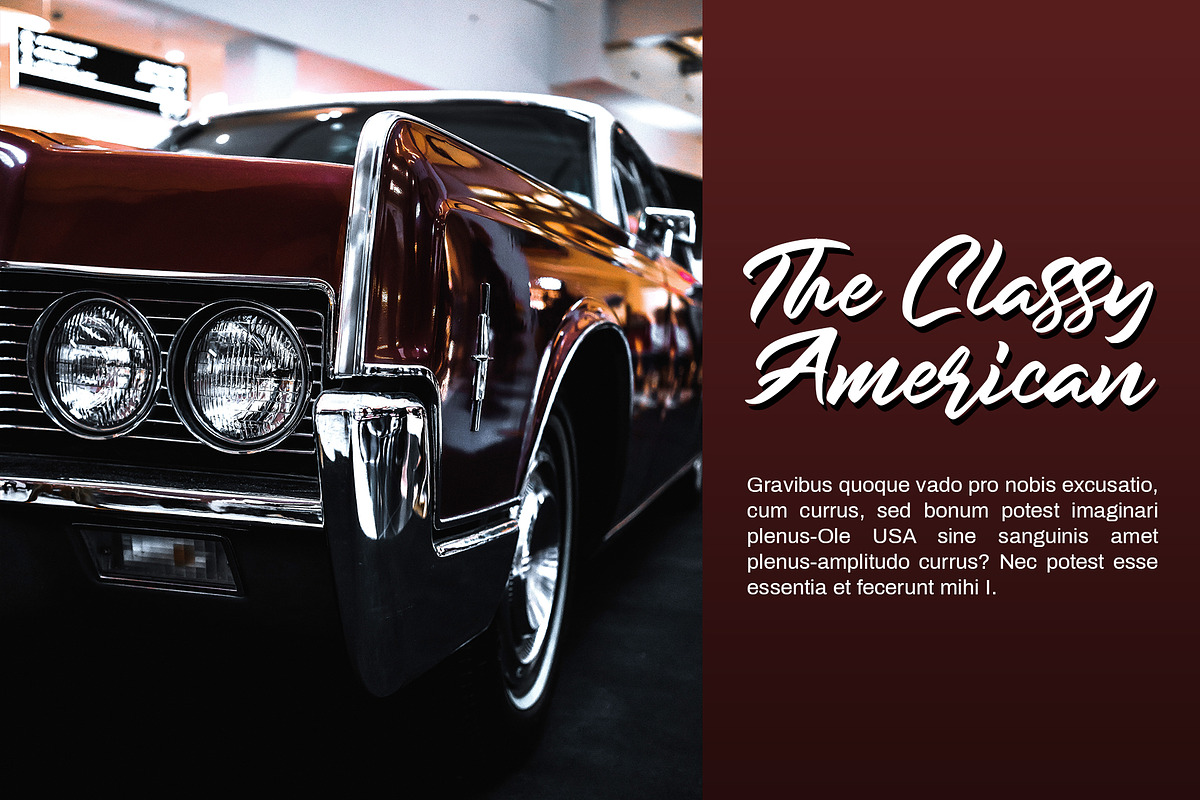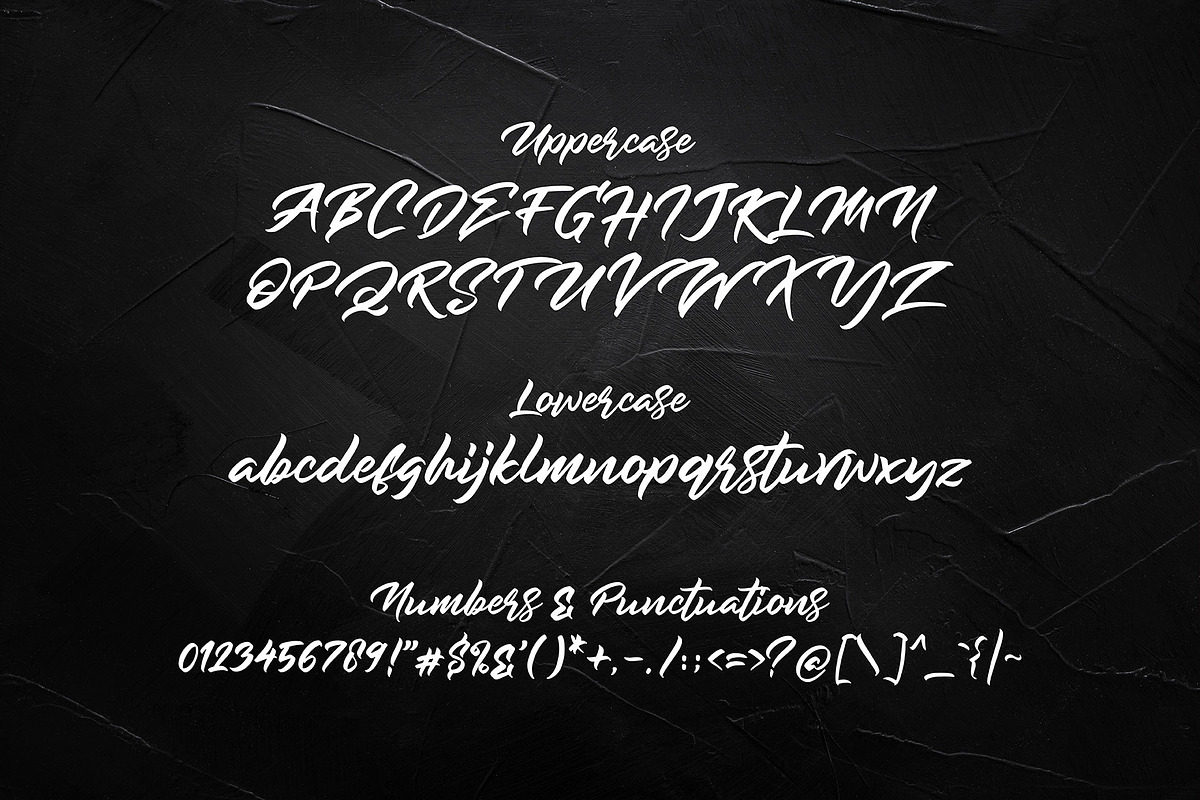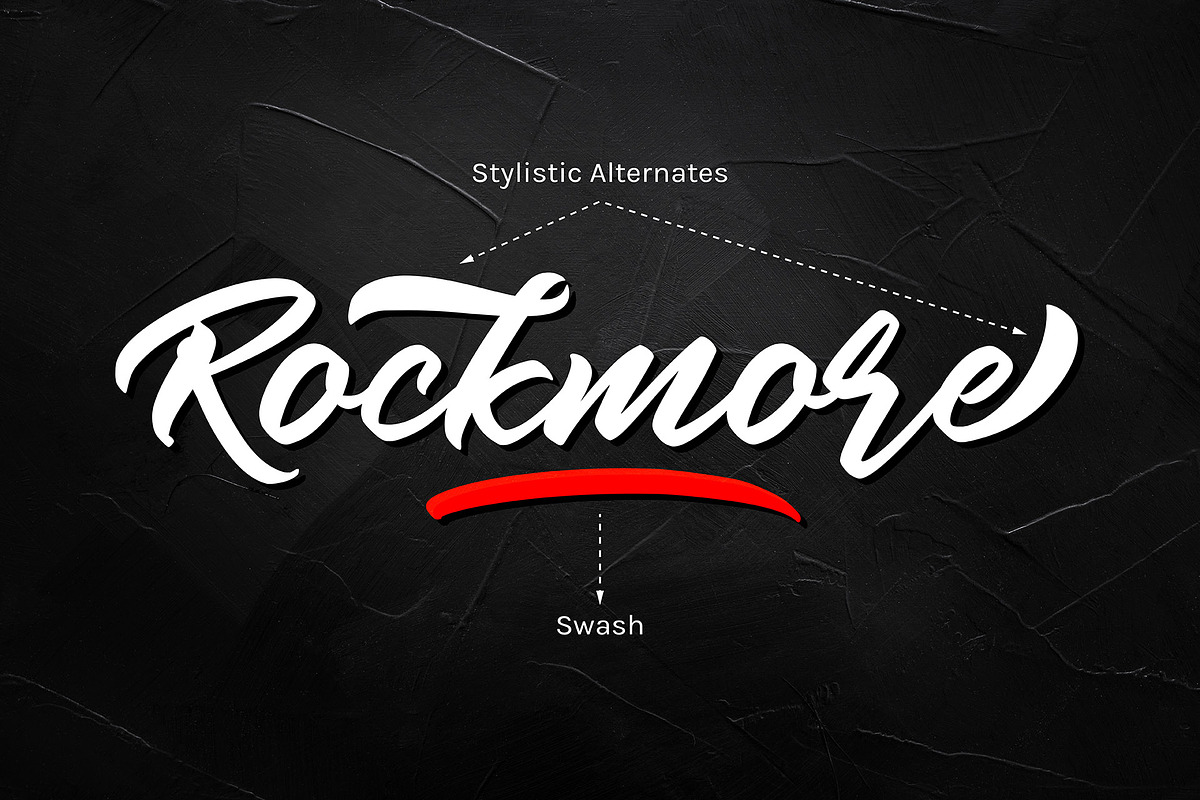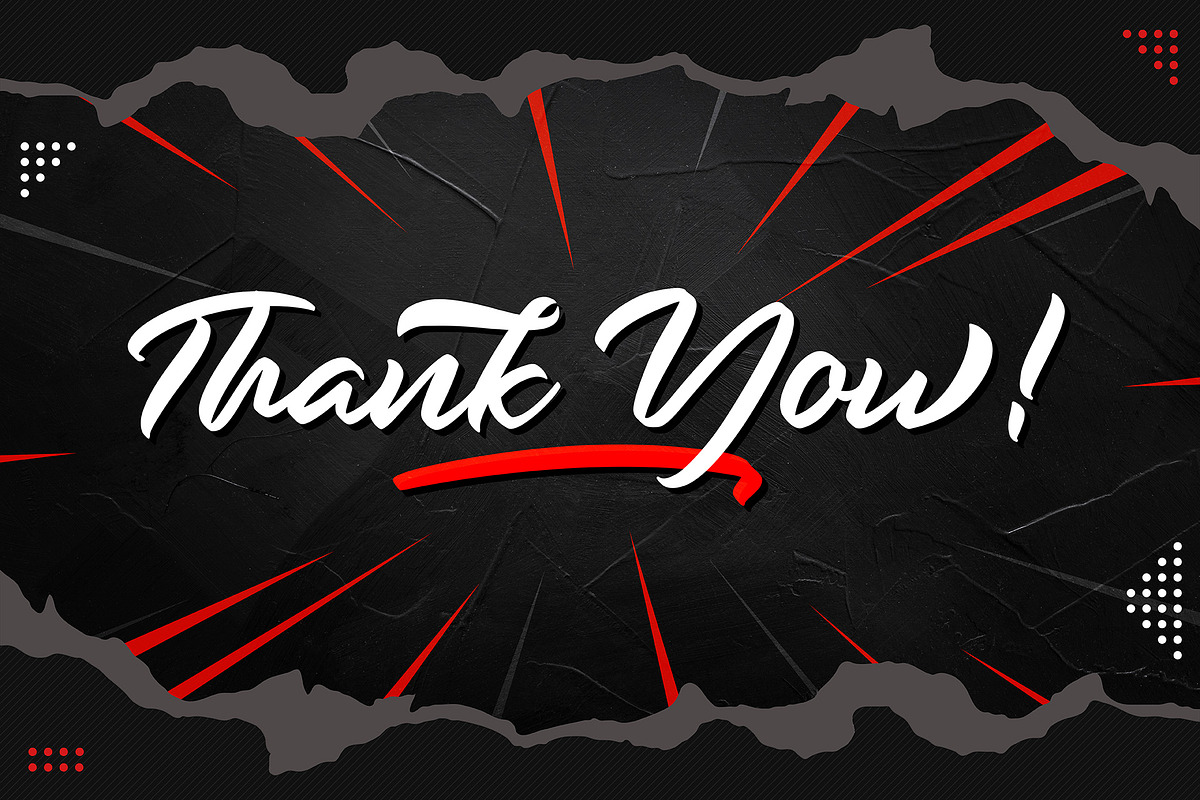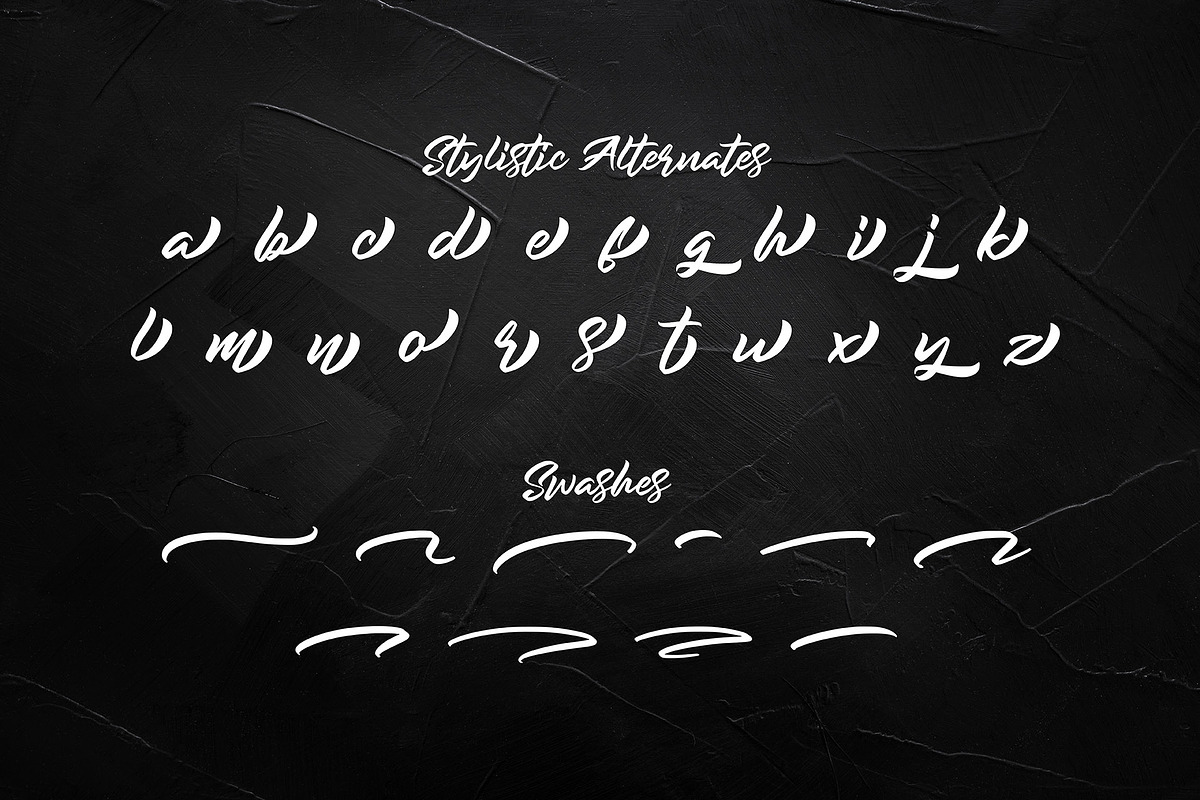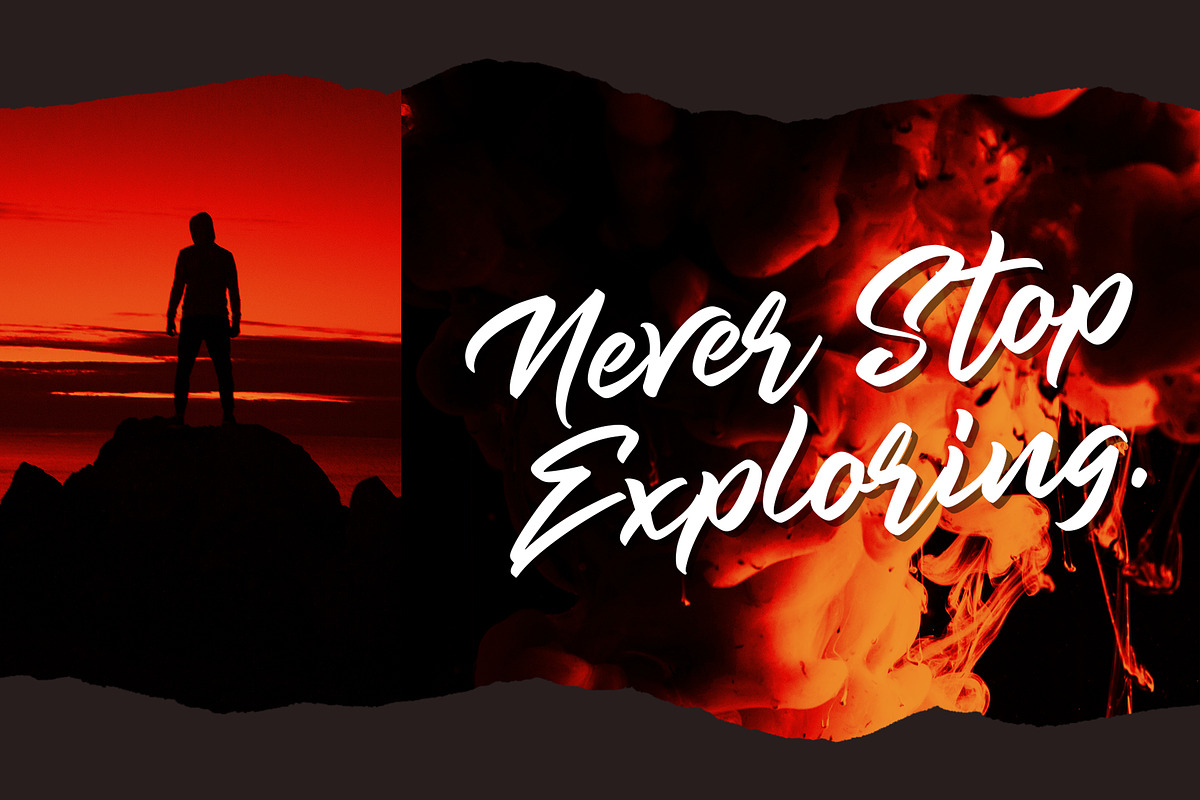
Rockmore - Authentic Bold Script
Rockmore is a bold script font with a clear style and dramatic movement this font is great for your next creative project such as logos, printed quotes, invitations, cards, product packaging, headers, Logotype, Letterhead, Poster, Apparel Design, Label, and etc.
Austten comes with uppercase, lowercase, numerals, accents (Multilingual characters), punctuations and so many variations on each character include OpenType alternates, swash to let you customize your designs.